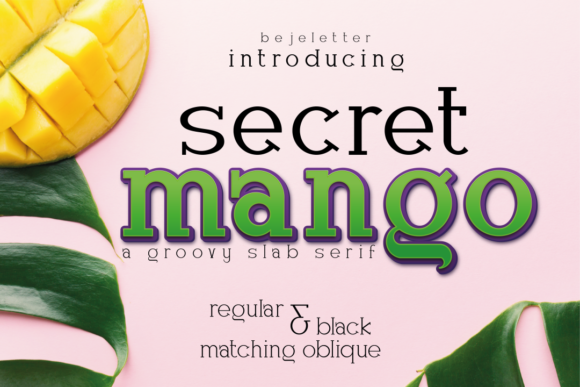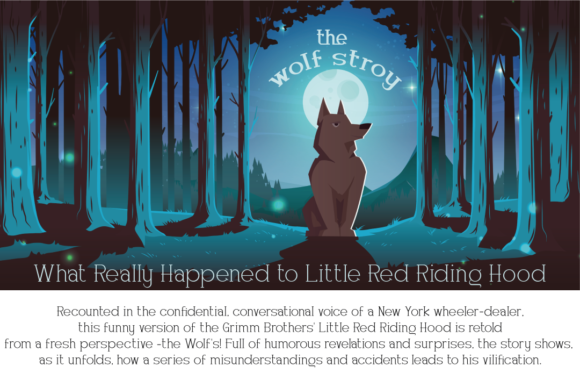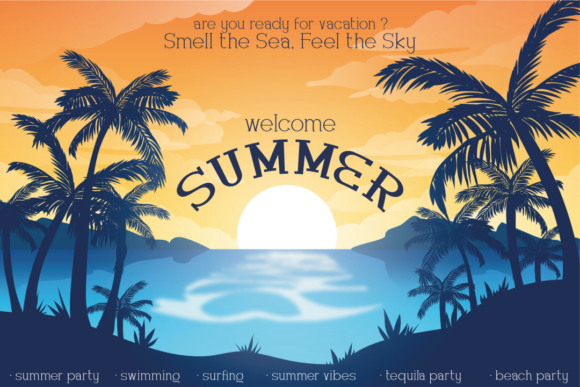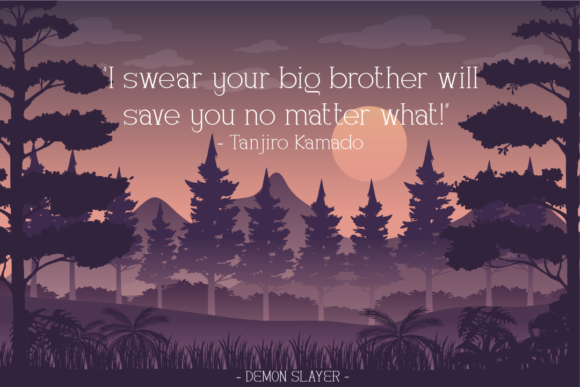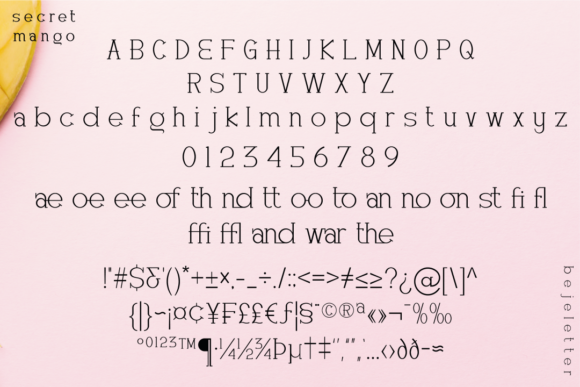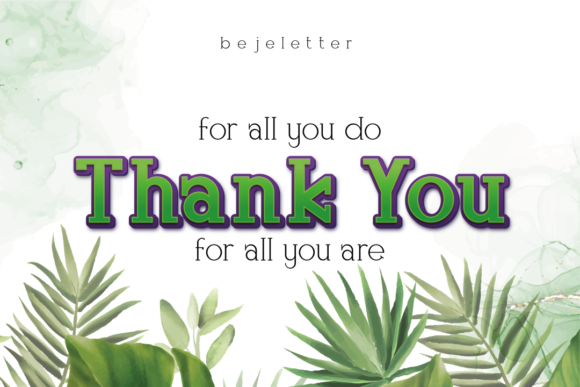
Secret Mango
Secret Mango: A Simple and Confident Slab Serif Font
Secret Mango is a distinctive slab serif font that combines simplicity with confidence. This versatile typeface is designed to enhance a wide range of projects with its straightforward yet assured style.
Key Features of Secret Mango
• Simple Design: Offers clean and uncomplicated letterforms for easy readability.
• Confident Style: Exudes a self-assured aesthetic suitable for various applications.
• Slab Serif Structure: Incorporates the characteristic thick, rectangular serifs typical of slab serif fonts.
• PUA Encoded: Allows easy access to all glyphs and swashes for enhanced design flexibility.
• Versatile Application: Suitable for a wide range of projects, adapting well to different design needs.
Ideal Uses for Secret Mango
Secret Mango’s unique characteristics make it particularly well-suited for:
• Branding and logo design
• Website headers and digital content
• Print materials such as posters and flyers
• Packaging design
• Social media graphics
• Editorial layouts
When incorporating Secret Mango into your designs, consider these tips:
• Use for headlines or short blocks of text to showcase its simple yet confident style
• Experiment with different sizes to highlight the font’s unique details
• Take advantage of the PUA encoding to access special characters and swashes
• Consider pairing with more elaborate fonts for contrast in complex designs
• Utilize its confident look for projects that require a strong, straightforward presence
Secret Mango is an excellent choice for designers looking to add a simple yet confident slab serif font to their typographic toolkit. Its ability to enhance various design projects with a straightforward and assured style makes it stand out in the world of typography. Whether you’re working on logo designs for modern brands, creating layouts for digital content, or developing print materials that require a touch of confidence, Secret Mango offers the perfect blend of simplicity and assurance.
Furthermore, Secret Mango’s PUA encoding allows designers to easily access all glyphs and swashes, expanding the creative possibilities of this font. From vintage-inspired designs with a modern twist to more playful layouts that need a touch of confidence, this font can elevate your projects. Its simple yet assured style works particularly well in designs that require a thoughtful and direct mood.
In conclusion, Secret Mango is a font that truly brings confidence to your designs without unnecessary complexity. Its ability to work well in both minimalist, modern projects and more elaborate layouts showcases its flexibility. For those looking to add a touch of straightforward assurance to their work, Secret Mango can even enhance traditional designs with its unique, confident style. Add it confidently to your projects, and you will love the results it generates.